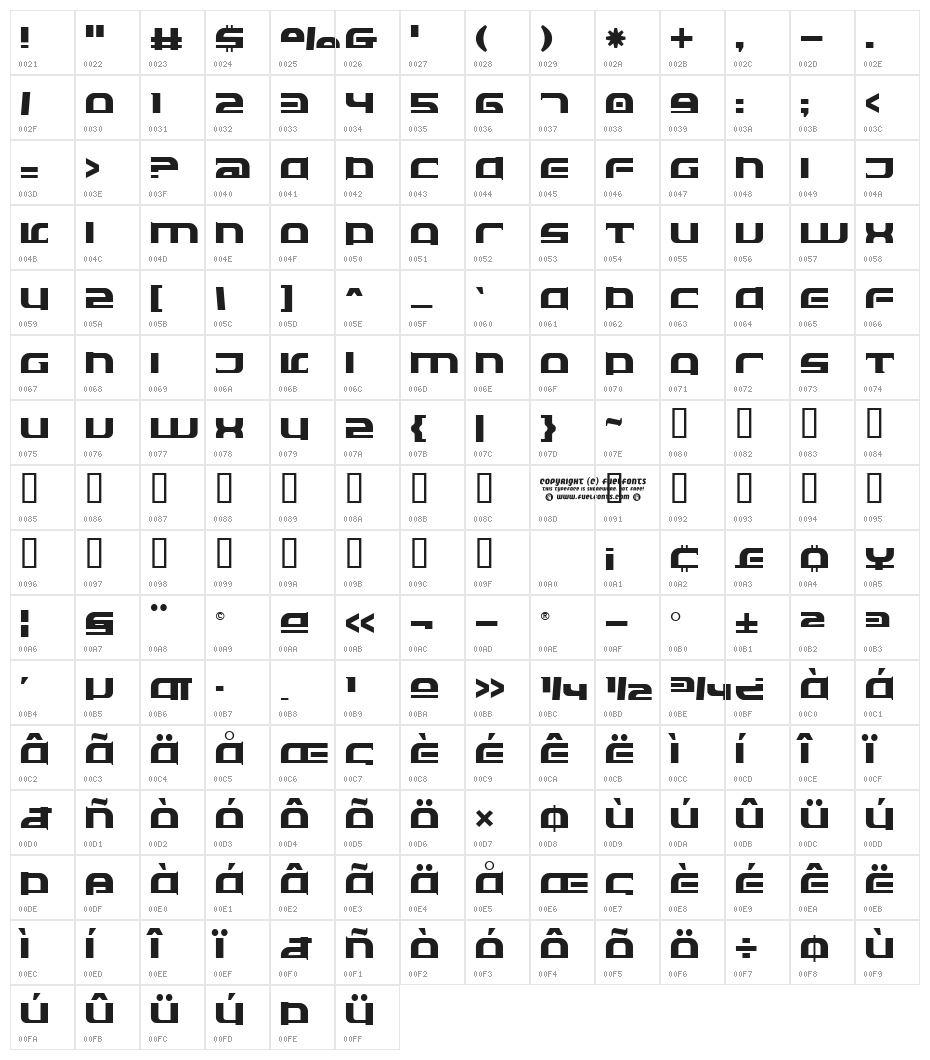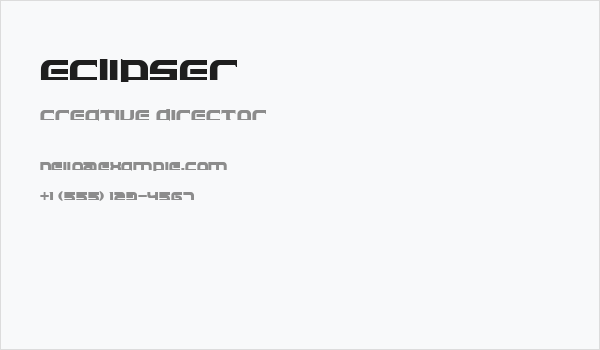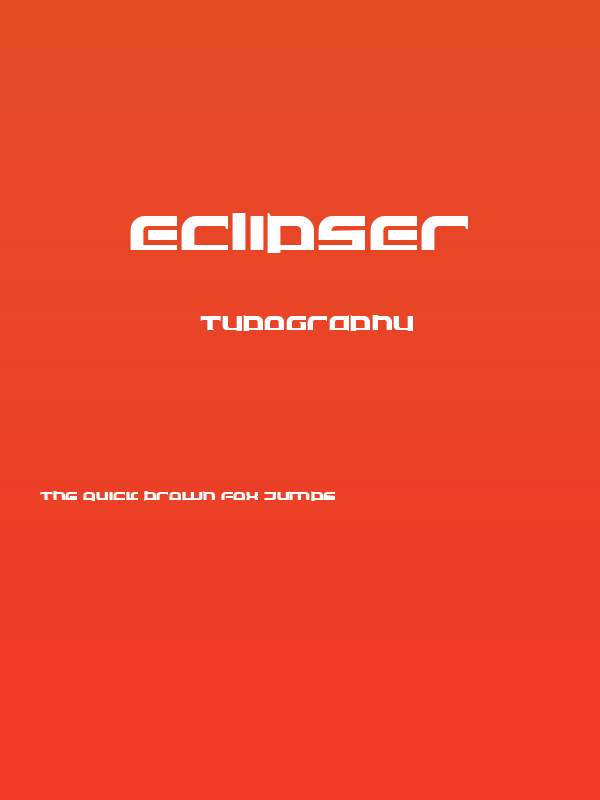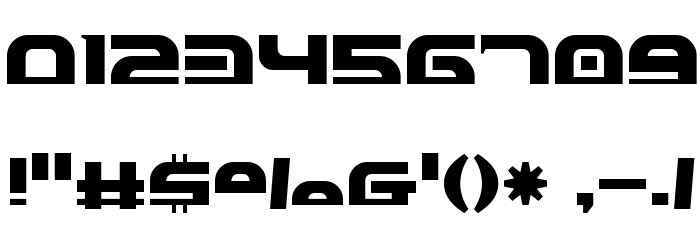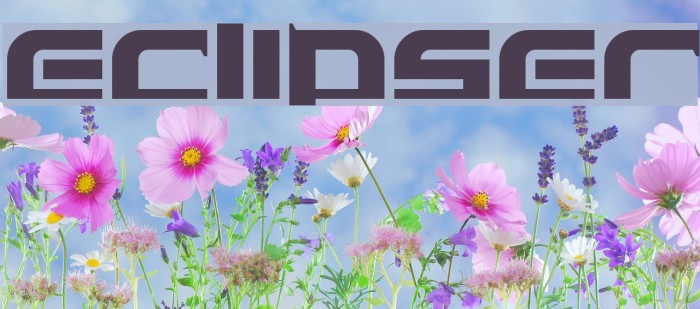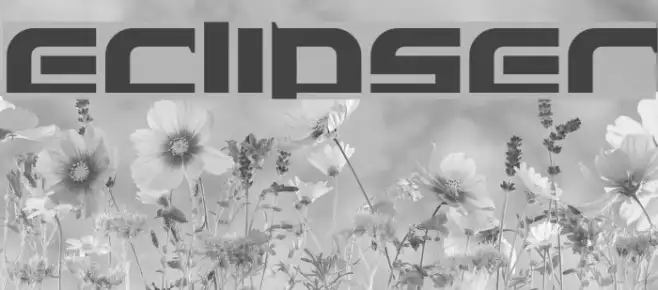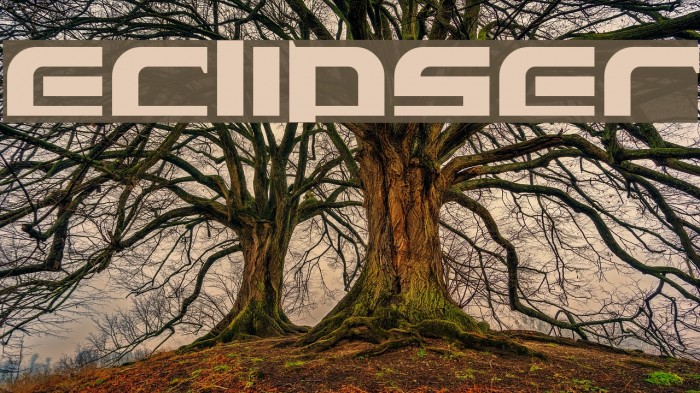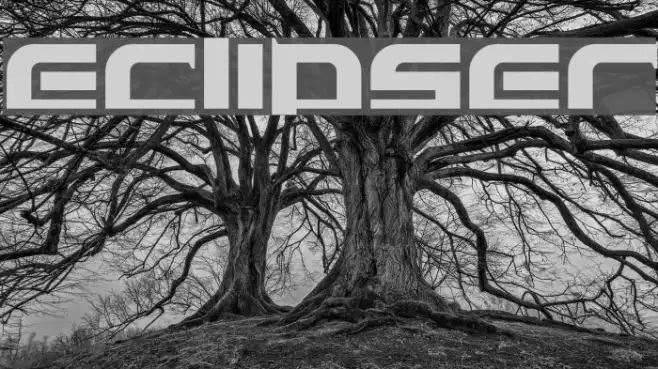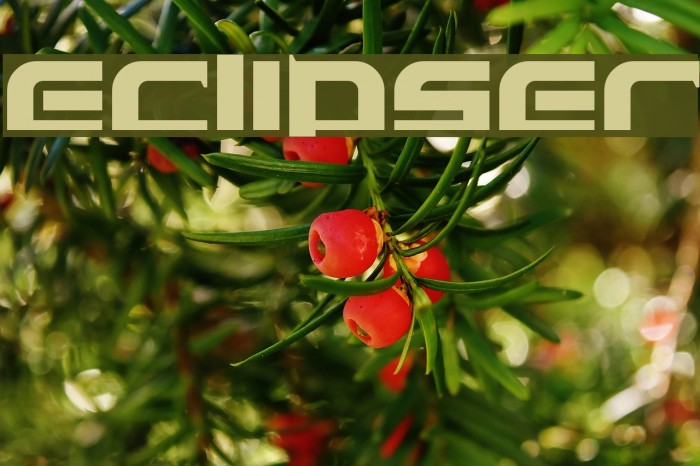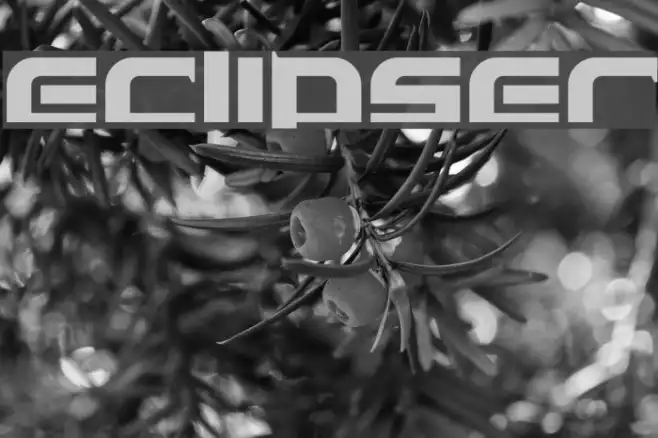
Eclipser Font
Eclipser Description
This font exhibits a futuristic and geometric design, characterized by its bold and angular letterforms. The characters are constructed with sharp edges and a consistent thickness, creating a strong visual impact. The uppercase and lowercase letters share a similar structure, enhancing the uniformity of the typeface. The numerals and special characters maintain the same stylistic approach, ensuring cohesion across all glyphs. This font's unique style makes it suitable for modern and tech-oriented projects, where a bold and distinctive appearance is desired.